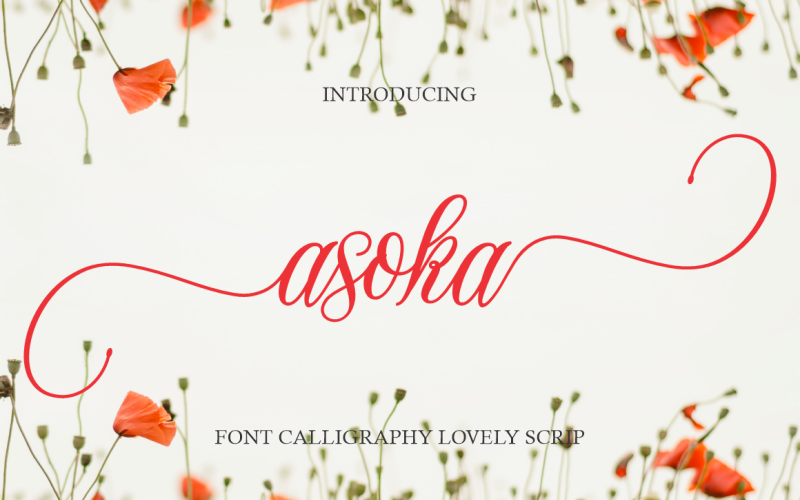
Asoka Handwritten Font Calligraphy
Asoka font is a modern, dynamic handcrafted font that also has beautiful opentype features. Antares font is great for Branding, Logo Design, Fonts, Logotype, Clothing, Posters, magazines and other design projects.